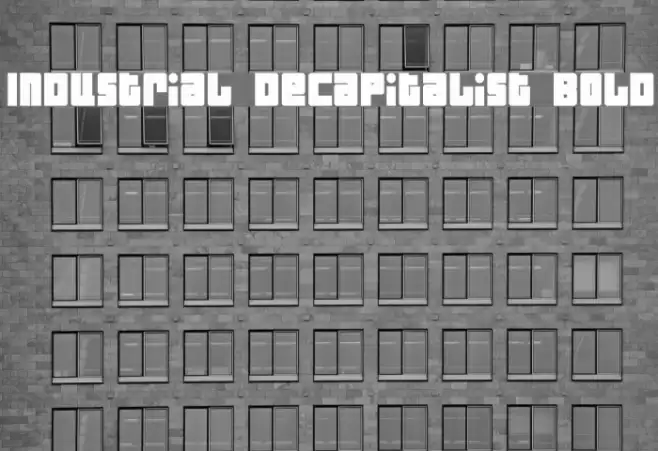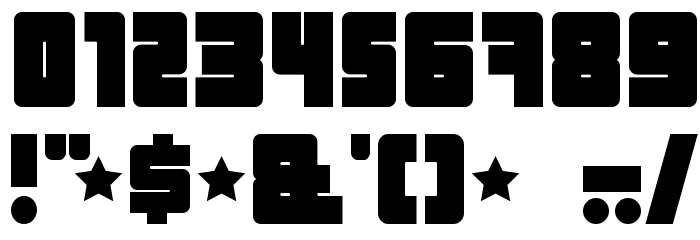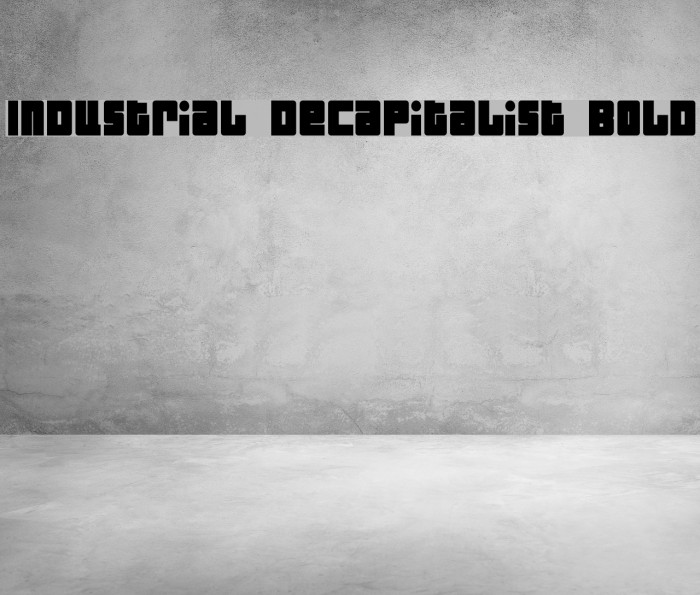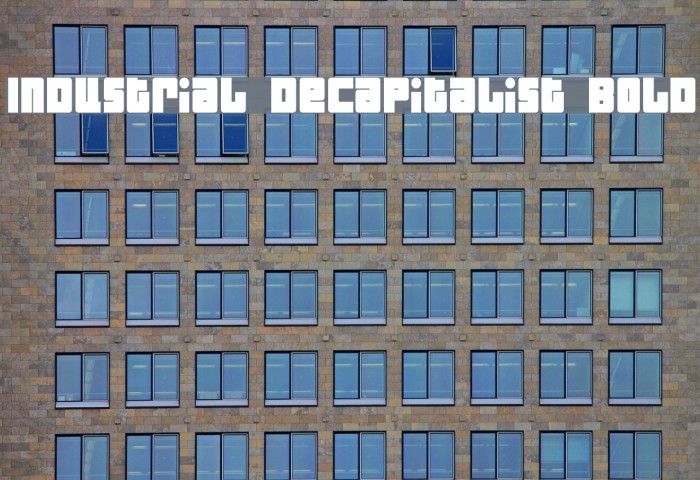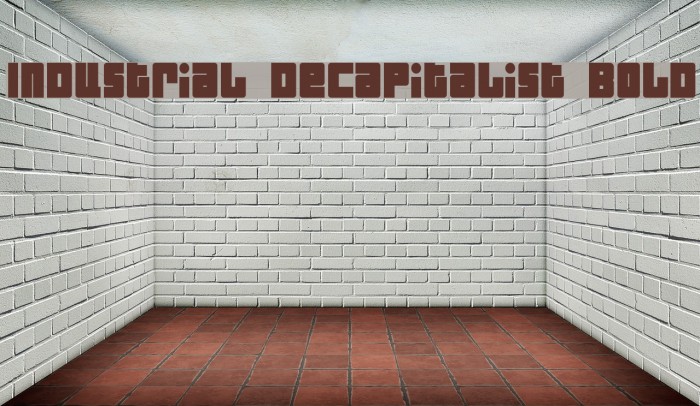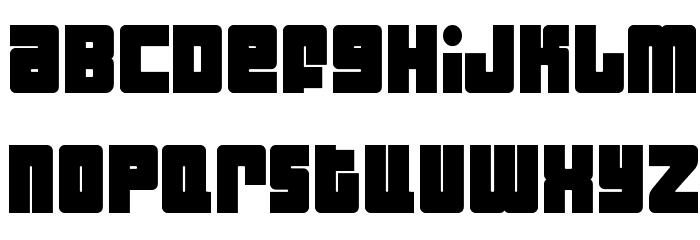
Industrial Decapitalist Bold Font
Industrial Decapitalist Bold Description
This font features a bold, industrial design with strong geometric shapes and a blocky appearance. The characters are uniformly wide, creating a sense of solidity and strength. The uppercase and lowercase letters maintain a consistent style, with minimal contrast between thick and thin strokes, emphasizing a robust and powerful aesthetic. The numerals and special characters follow the same design principles, ensuring a cohesive look across all elements. This font is ideal for projects that require a bold statement or an industrial feel.
A bold, industrial font with geometric shapes and a blocky appearance from Dotted fonts.
- Proposed Projects: Ideal for branding, posters, headlines, and any design requiring a strong, industrial aesthetic.
- Overall Style: Industrial, Modern